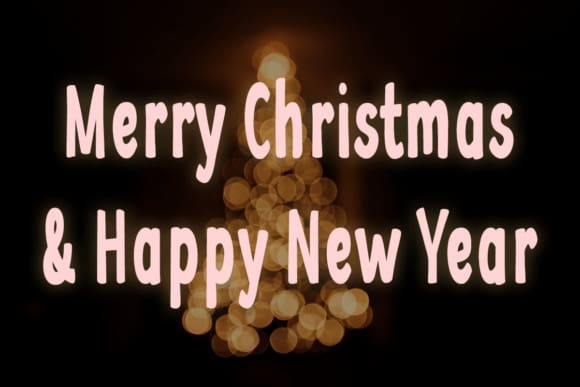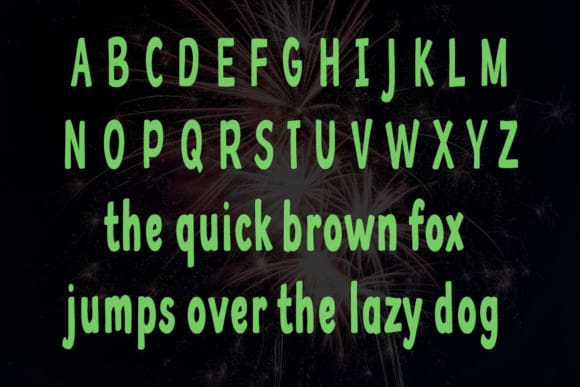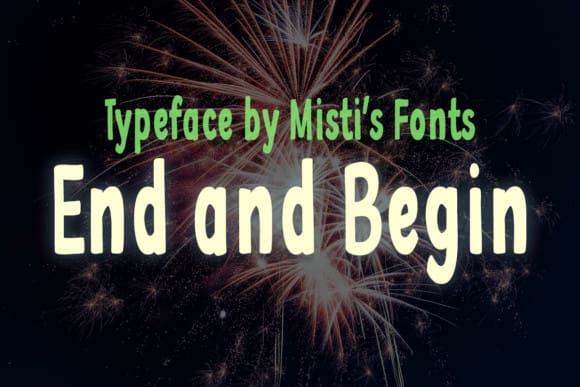
End And Begin Font
End and Begin Font is a sleek, condensed sans serif typeface with smooth, rounded edges that bring a modern yet approachable feel to your designs. Perfect for headlines, branding, and minimalist projects, this versatile font balances clarity and elegance with ease.